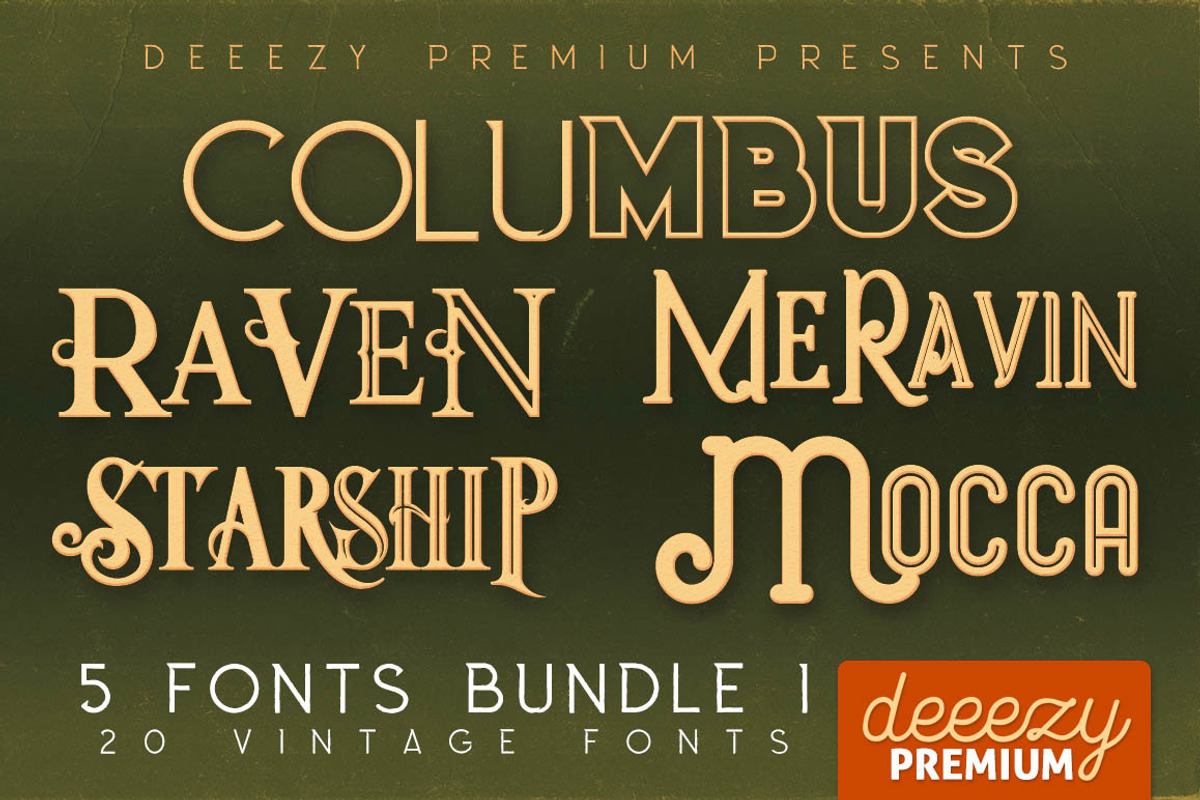
5 Fonts Bundle 1 Free Download is a versatile collection of high-quality typefaces designed to meet a variety of creative needs. From elegant scripts to bold displays and clean sans-serifs, this bundle is perfect for branding, social media content, invitations, product packaging, and more.
Whether you're working on a sophisticated logo or a fun, eye-catching poster, 5 Fonts Bundle 1 Free Download gives you multiple options to explore your creativity. Each font is thoughtfully crafted to stand out on its own or work seamlessly together. Try them out in your next project to experience their range and flexibility—then upgrade to a commercial license when you’re ready to take your designs to the next level.